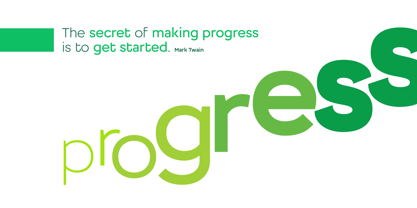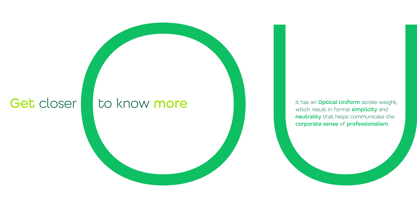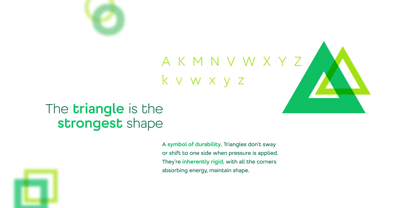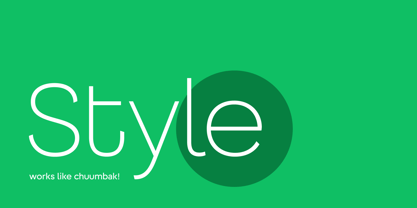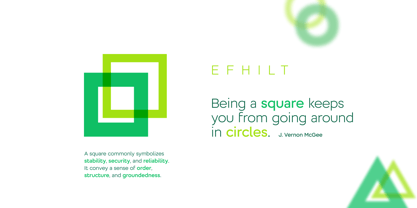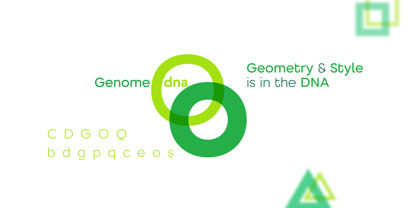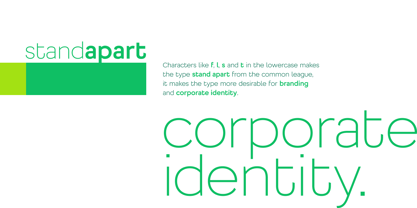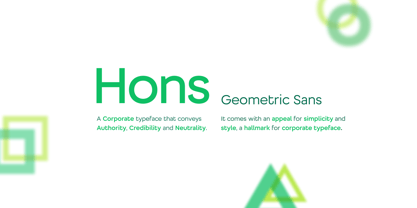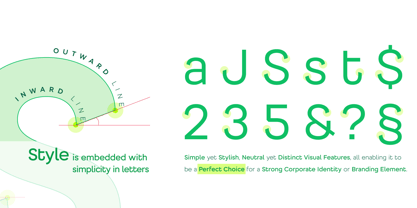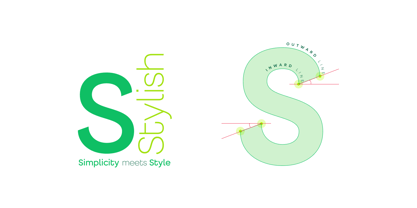
Hons
by Soneri Type
The Hons Font Family was designed by Aakash Soneri and published by Soneri Type. Hons contains 7 styles and family package options. More about this family
Hons is a geometric sans-serif typeface meticulously crafted for simplicity, a foundational aspect of corporate design. This design embodies authority, credibility, and neutrality, essential for a professional corporate landscape. Its optically uniform strokes create a clean, formal appearance that exudes professionalism and neutrality. These characteristics make Hons exceptionally suitable for branding and corporate identity applications.
The typeface features stylish yet straightforward letterforms, blending neutrality with distinct visual elements, making it an ideal choice for establishing a strong corporate identity or branding component. Designed by Akash V Soneri, the Hons type family offers versatility across various applications, including digital platforms, print media, and marketing materials.